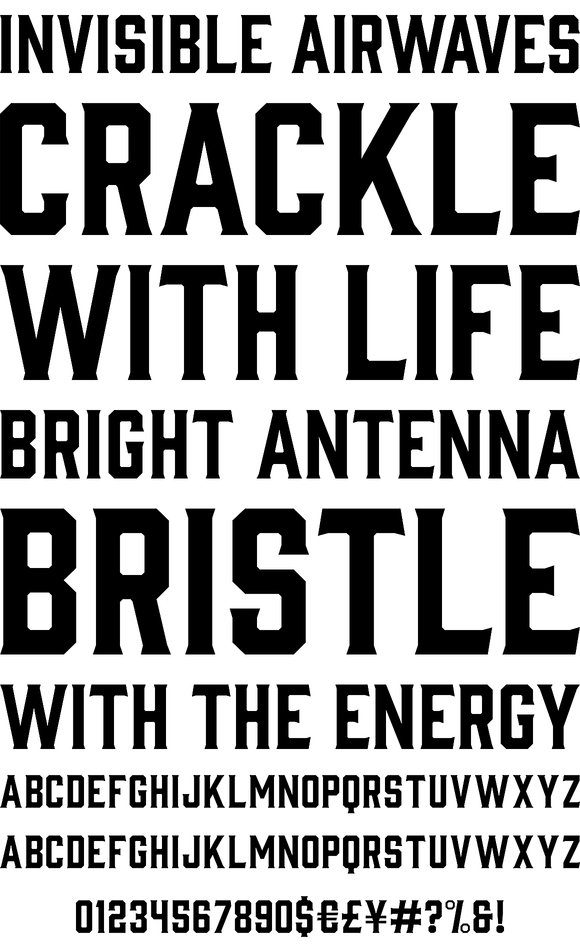
Gin Font
Like a brother to the Bourbon family, Gin is distilled from similar letterforms, but condensed less. This vintage display typeface was inspired by the likes of old serifs and classic bottles of whiskey and gin.
Features: Stylistic Alternates and Multiple Language Support